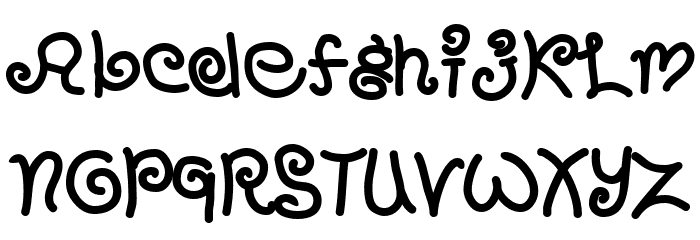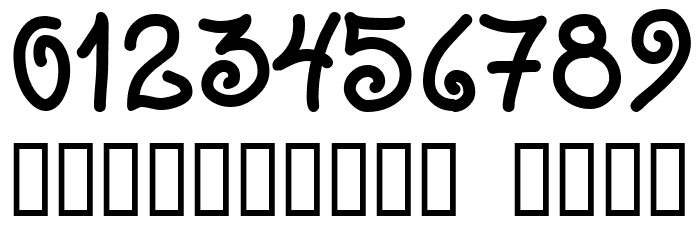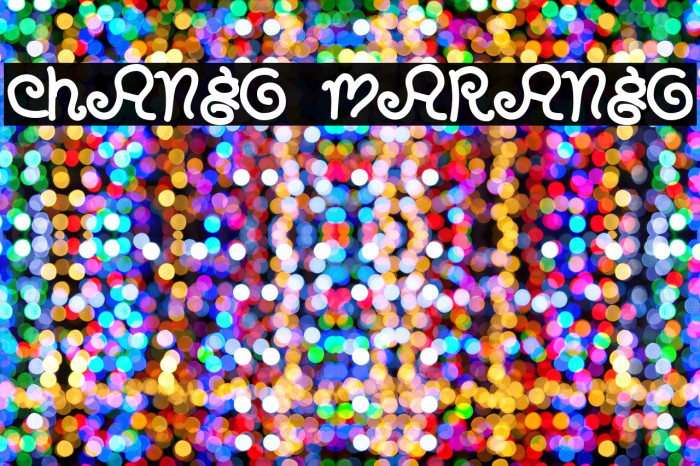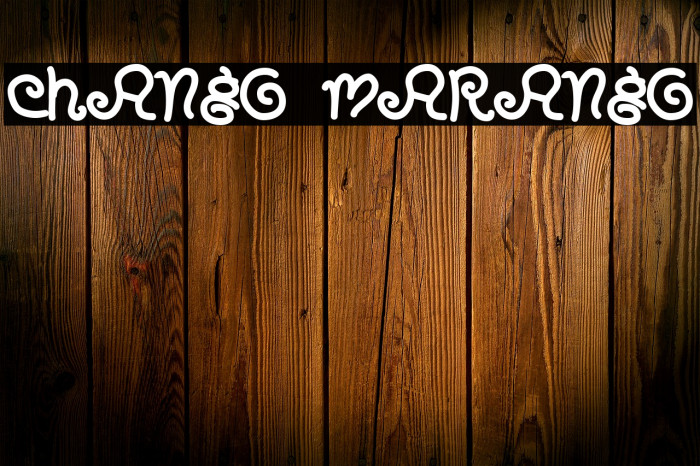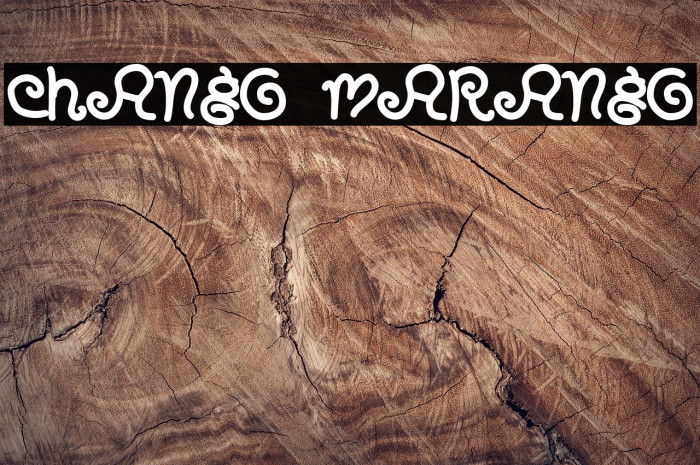
CHANGO MARANGO Font
This playful and whimsical font features a bold and curvy design with a unique flair. The characters are rounded and exhibit a lively, almost cartoonish style, making them stand out with their exaggerated loops and swirls. The uppercase and lowercase letters maintain a consistent flow, while the numbers and special characters continue the theme with their own distinctive twists. This font is perfect for projects that require a fun and engaging visual element.
A bold, playful font with curvy, whimsical characters.
- Proposed Projects: Ideal for children's books, playful branding, party invitations, and creative posters.
- Overall Style: Playful, Whimsical